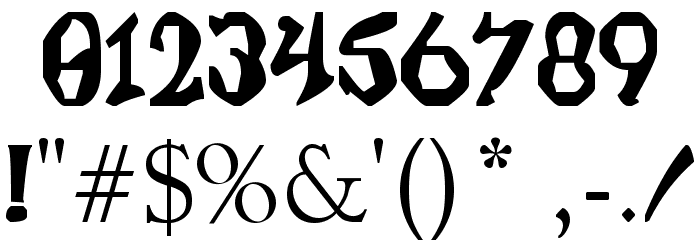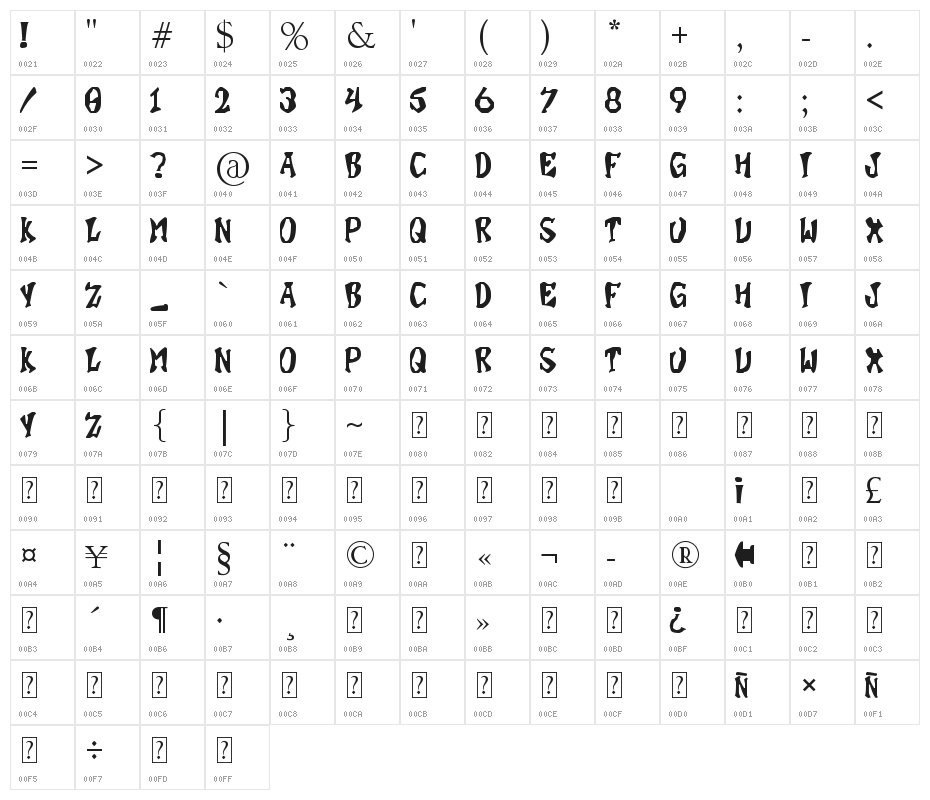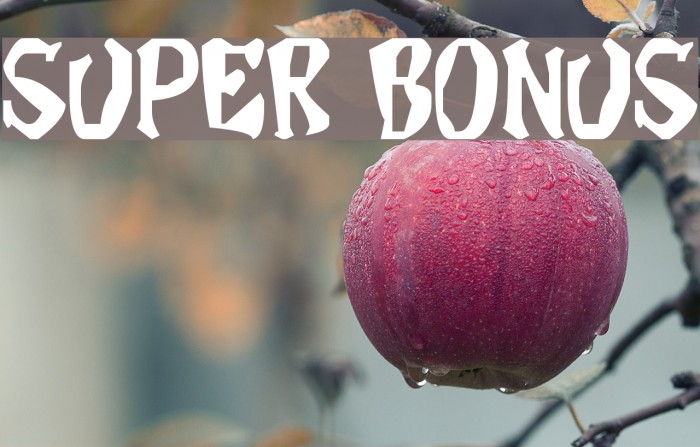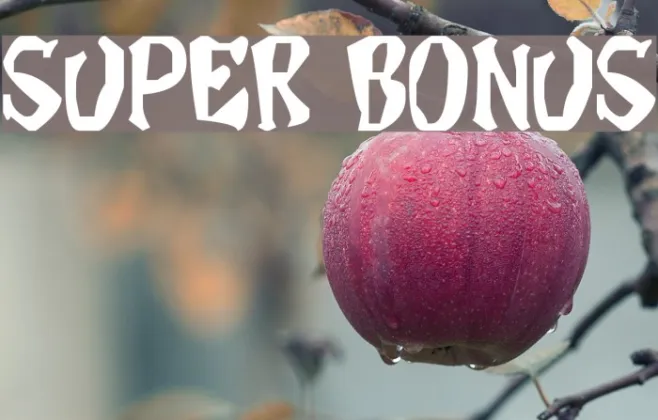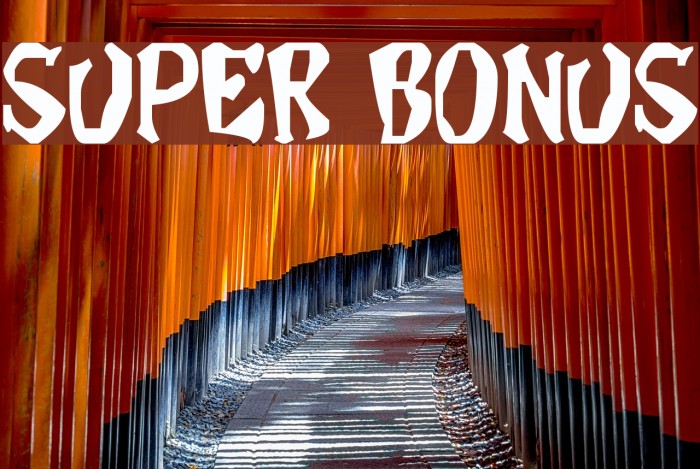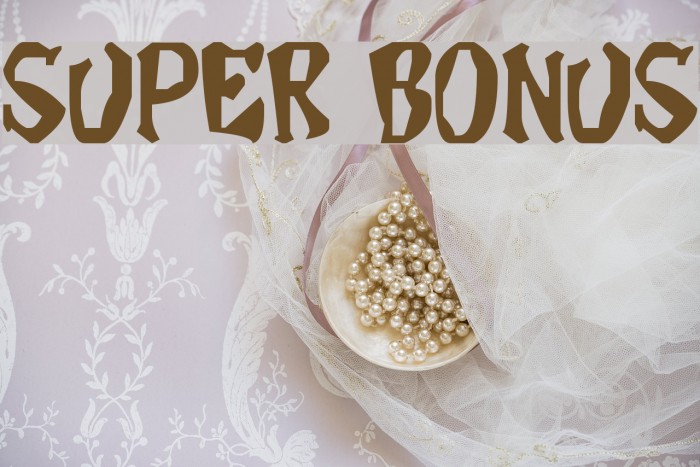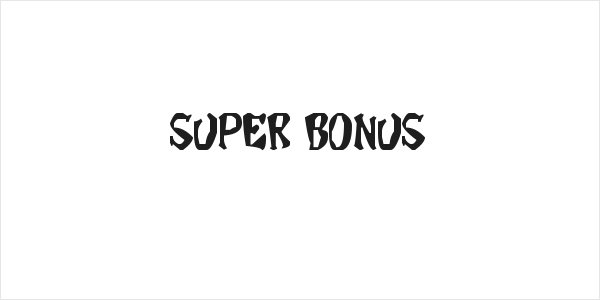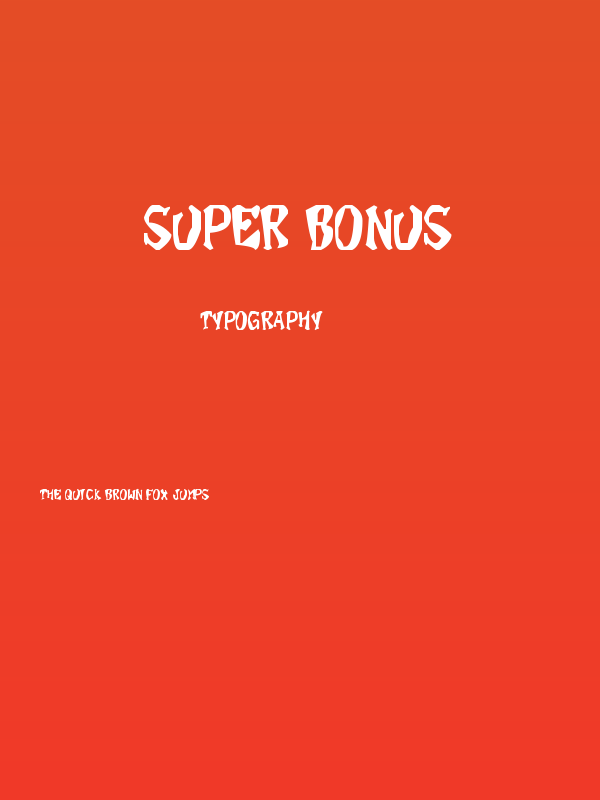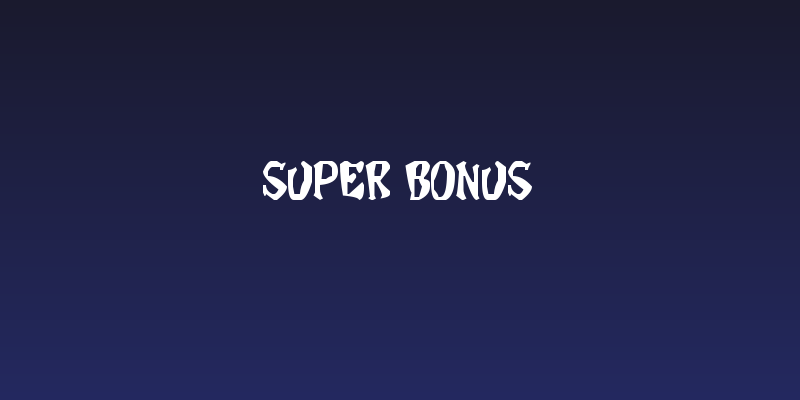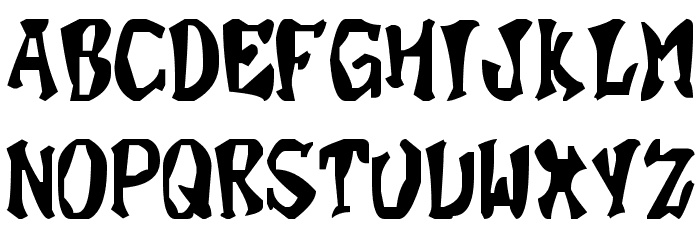
Super Bonus Font
Super Bonus Description
This font features a bold and dynamic design with sharp, angular edges and a slightly aggressive appearance. The characters are heavily stylized, giving them a unique and eye-catching look. The uppercase and lowercase letters maintain a consistent style, with exaggerated serifs and a sense of motion. Numbers and special characters are equally bold, ensuring a cohesive look across all glyphs. The font's distinctiveness makes it suitable for projects that require a strong visual impact.